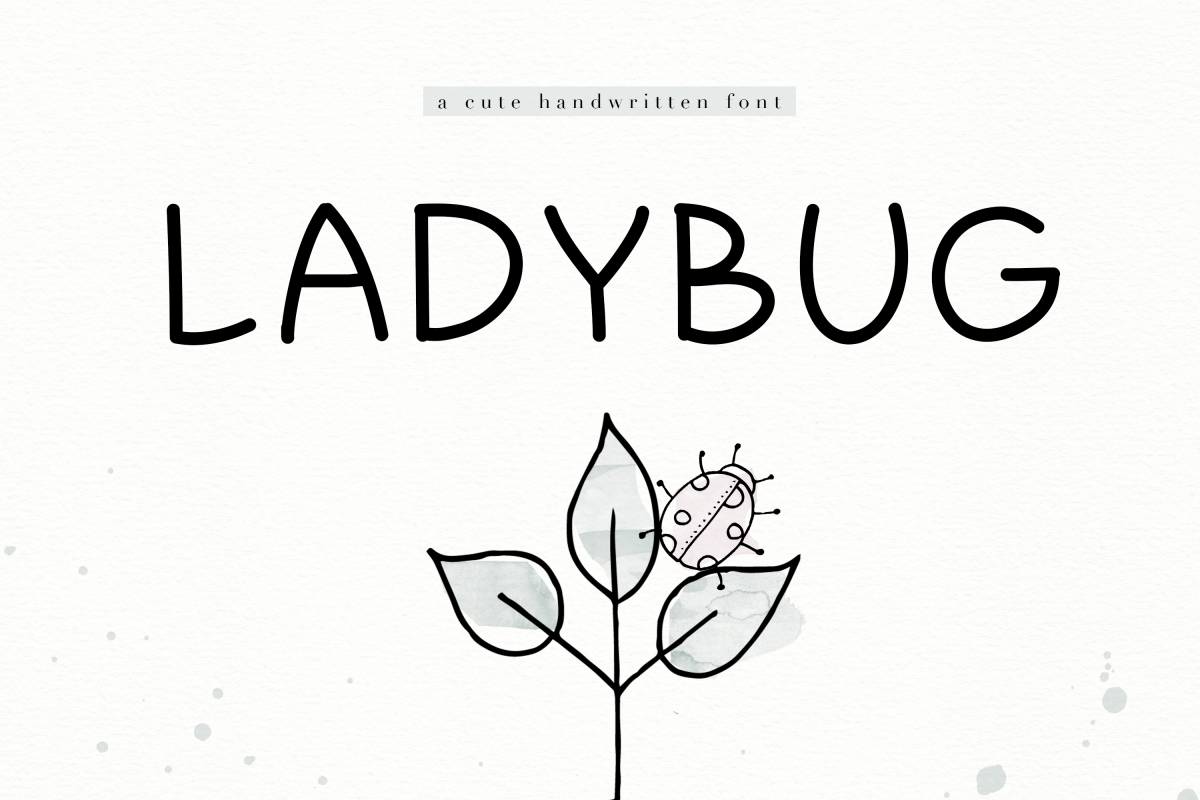
Ladybug - A Cute Handwritten Font
Ladybug
Ladybug is a cute handwritten font.
This font is perfect for quotes, headings, blogs, logos, invitations and more!
It is also great for children's designs!
This font does not include accent characters.